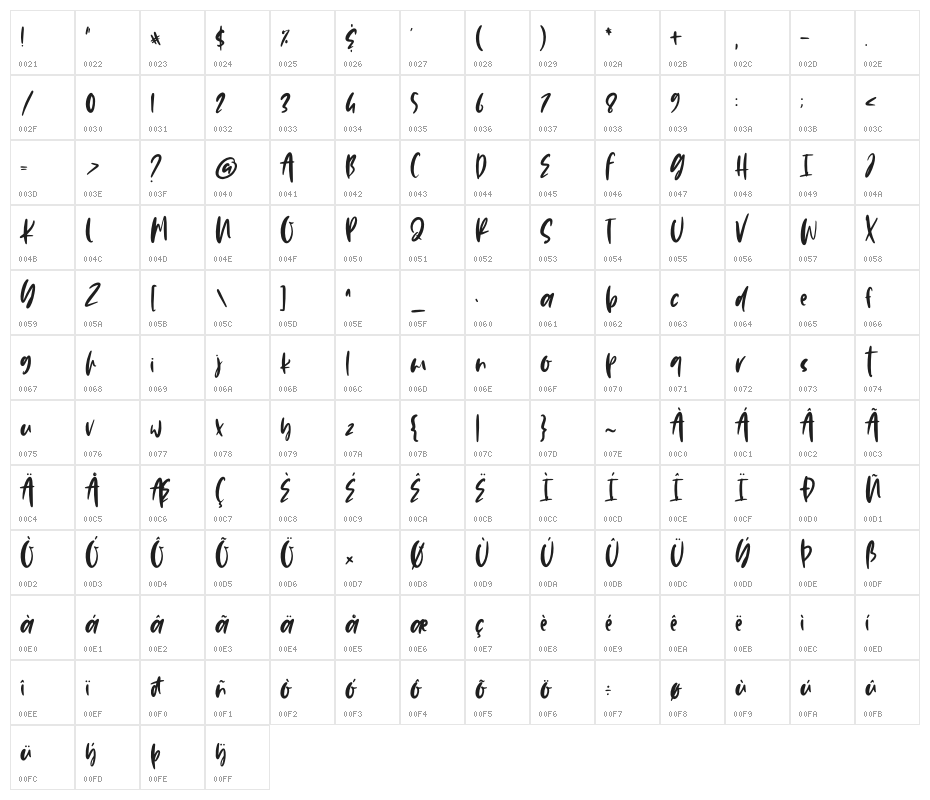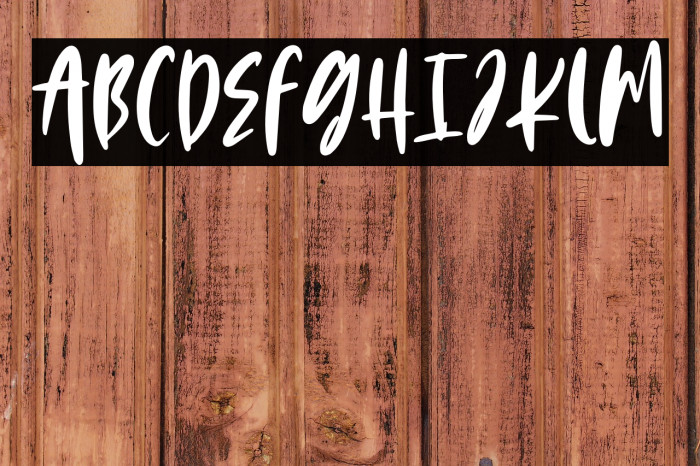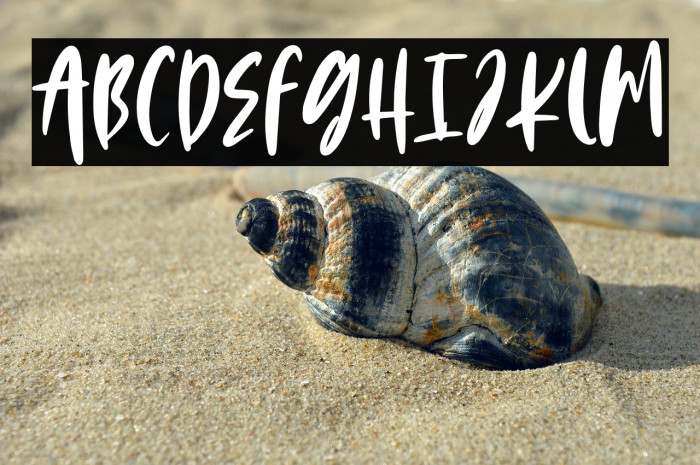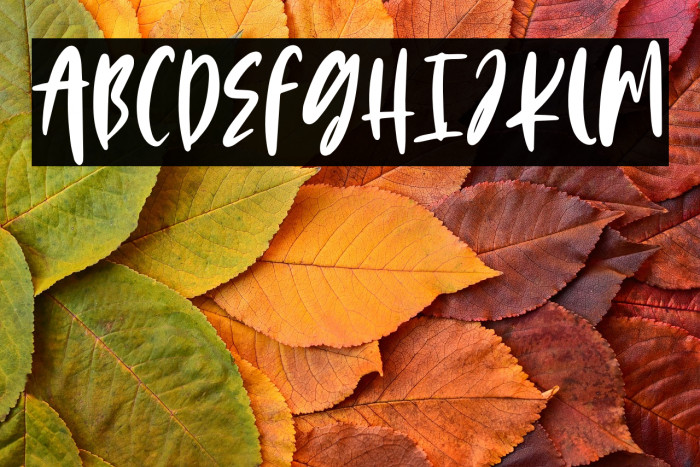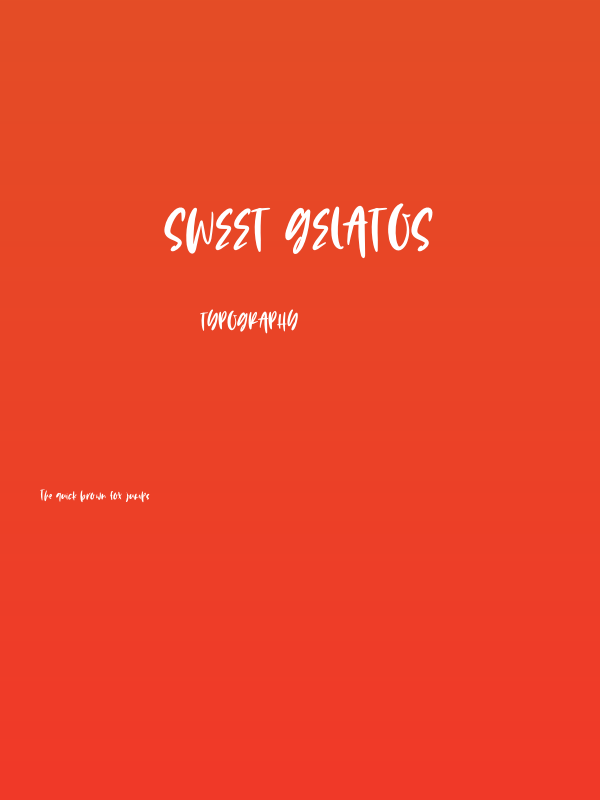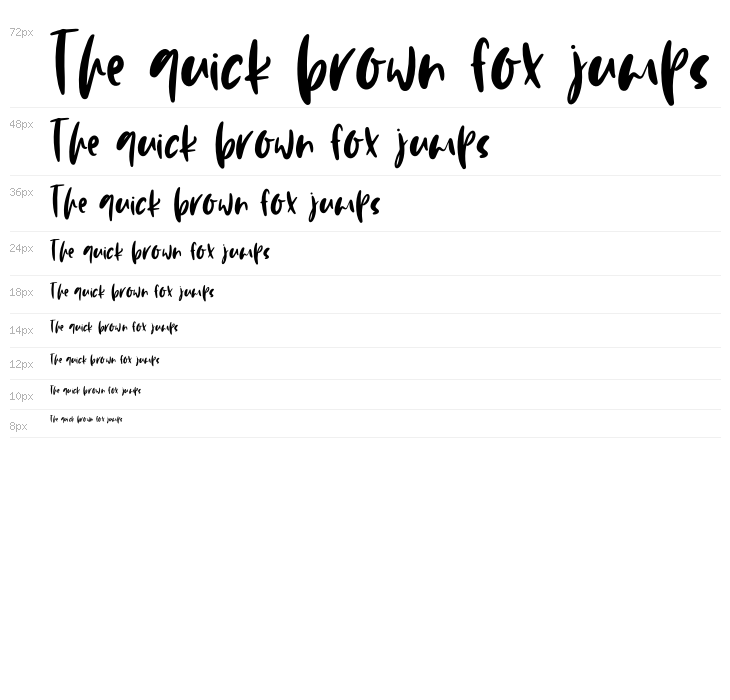
Sweet Gelatos Font
Sweet Gelatos Description
A playful, bold handwritten script with energetic strokes and a casual, brush-pen appearance. The characters are slightly irregular, giving a lively and informal feel, with noticeable variation in stroke thickness and rounded terminals.
| Overall Style | Decorative, Playful, Modern |
| Use Case | Logos, Headlines, Posters, Invitations |
| Proposed Projects | Greeting cards, social media graphics, branding for bakeries or cafes, event invitations, playful posters. |